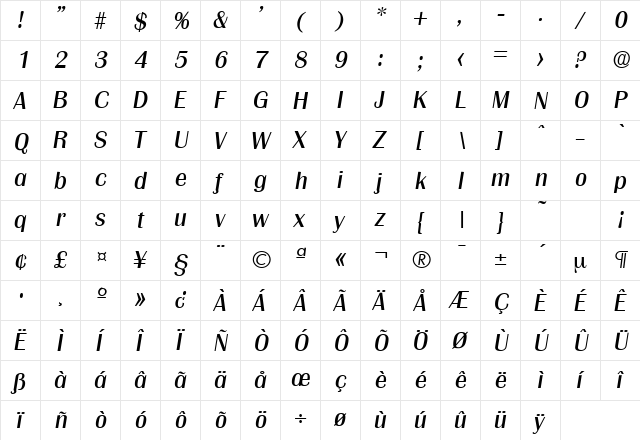
Grenoble-Serial DB RegularItalic
Design Context for Grenoble-Serial DB Typeface
Grenoble-Serial DB offers clean, dependable letterforms without strong stylistic allegiance, making it a practical choice for designers who need flexibility. The dynamic lean of this cut emphasises speed and emphasis in any layout.
Pro Tip: Try Grenoble-Serial DB for annotation and caption copy alongside an upright companion — the contrast in angle creates a dynamic but ordered typographic system.